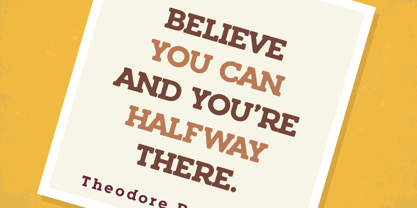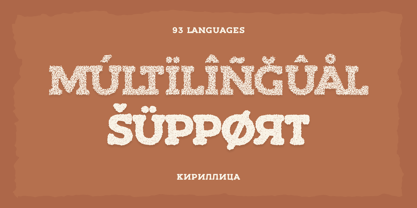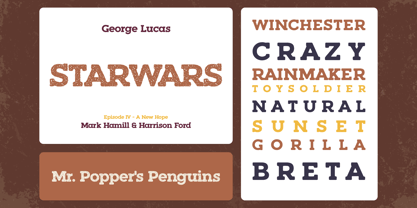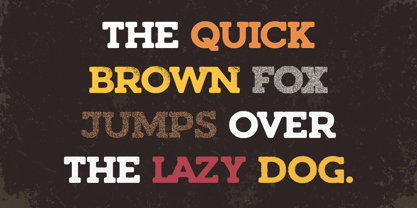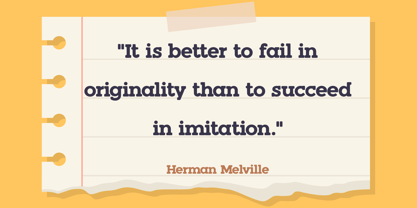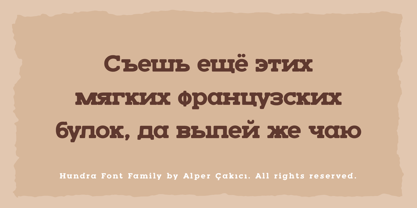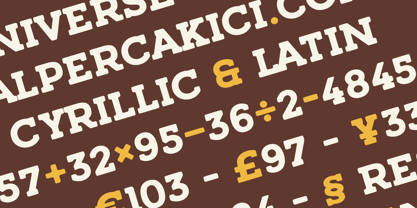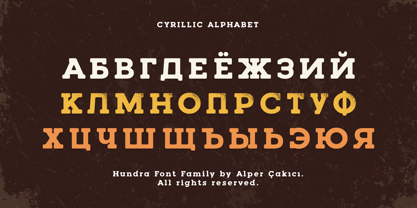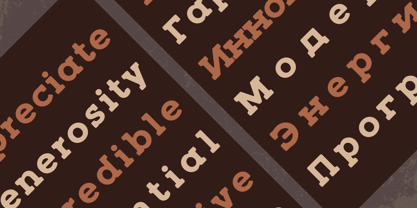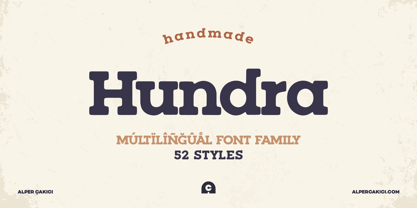
Hundra
by AlperCakici
The Hundra Font Family was designed by Alper Çakıcı and published by AlperCakici. Hundra contains 52 styles and family package options. More about this family
Hundra is a modern, versatile and a slab font family with excellent kerning, making it ideal for both digital and print use. It features full support for the Cyrillic language, allowing for seamless multilingual communication. Hundra's unique design combines classic proportions with a contemporary feel, making it stand out from other same categories fonts.
It has styles such as Paper Cutout, Stipple, Rough, Worn, Letterpress, Grain, Noise, Eroded and many more.
It supports 93 Languages: Belarusian, Russian, Afrikaans, Albanian, Asu, Basque, Bemba, Bena, Breton, Catalan, Chiga, Colognian, Cornish, Croatian, Czech, Danish, Dutch, Embu, English, Esperanto, Estonian, Faroese, Filipino, Finnish, French, Friulian, Galician, German, Gusii, Hungarian, Indonesian, Irish, Italian, Kabuverdianu, Kalenjin, Kamba, Kikuyu, Kinyarwanda, Latvian, Lithuanian, Lower Sorbian, Luo, Luxembourgish, Luyia, Machame, Makhuwa-Meetto, Makonde, Malagasy, Maltese, Manx, Meru, Morisyen, North Ndebele, Norwegian Bokmål, Norwegian Nynorsk, Nyankole, Oromo, Polish, Portuguese, Quechua, Romanian, Romansh, Rombo, Rundi, Rwa, Samburu, Sango, Sangu, Scottish Gaelic, Sena, Serbian, Shambala, Shona, Slovak, Soga, Somali, Spanish, Swahili, Swedish, Swiss German, Taita, Teso, Turkish, Upper Sorbian, Uzbek (Latin), Volapük, Vunjo, Walser, Welsh, Western Frisian, Zulu